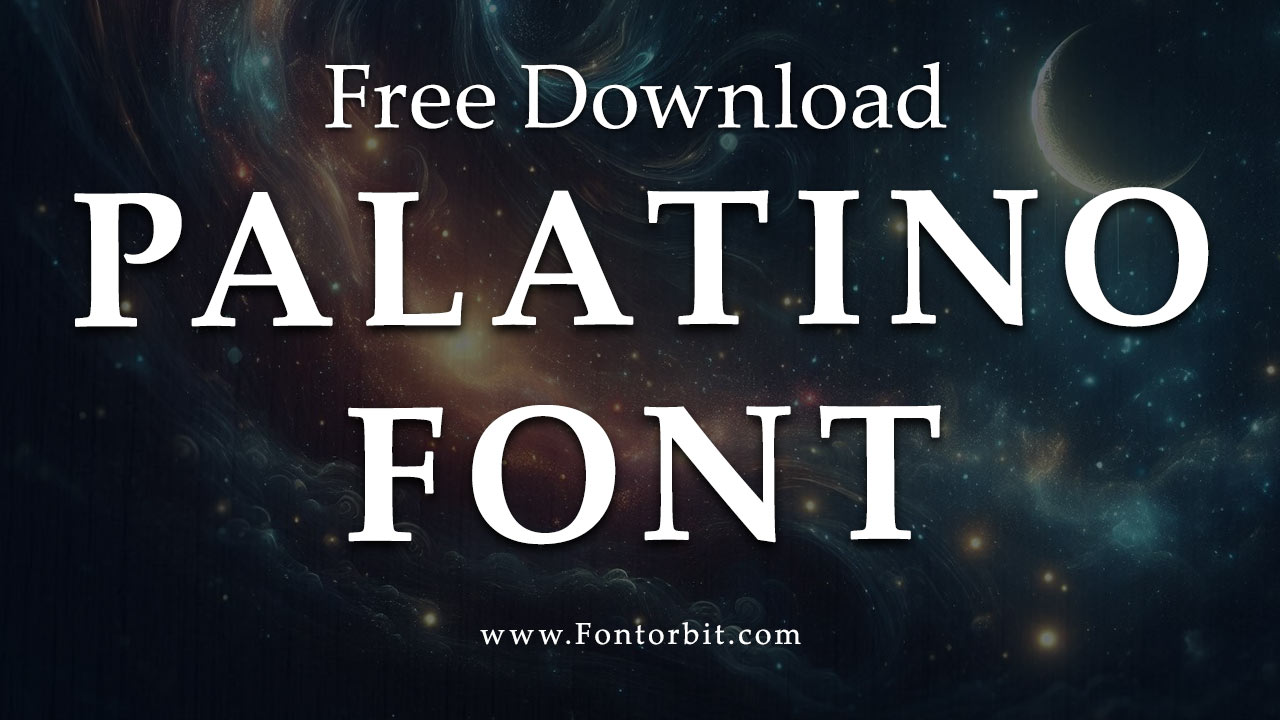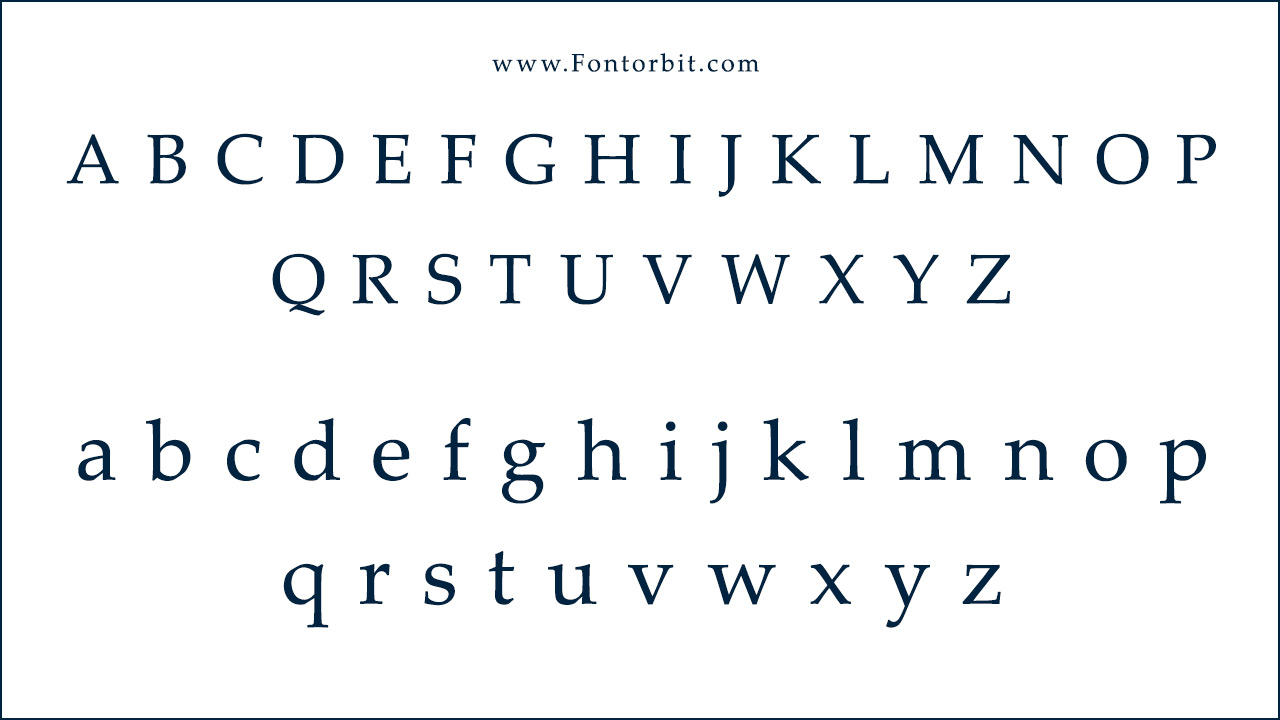
Palatino font is a classic serif typeface designed by Hermann Zapf and first released in 1949 by the Stempel foundry. Known for its legibility and elegance, it has become a staple in both print and digital media. It draws inspiration from the Italian Renaissance, making it a timeless choice for various design applications.
Palatino Family Includes:
- Palatino Pro Light
- Palatino Pro Light Italic
- Palatino Pro Roman
- Palatino Pro Italic
- Palatino Pro Medium
- Palatino Pro Medium Italic
- Palatino Pro Bold
- Palatino Pro Bold Italic
- Palatino Pro Black
- Palatino Pro Black Italic
Notable Uses Of Palatino
Palatino is widely used in book publishing, advertising, and branding due to its readability and classic appearance. It’s particularly favoured for:
- Book body text: Popular for novels and non-fiction.
- Headings and subheadings: Ideal for creating emphasis in print and digital layouts.
- Logo design: Employed by brands seeking a refined and traditional look.
Palatino Found In Use
You can find Palatino in numerous publications, corporate branding, and even digital interfaces. Some iconic uses include:
- Adobe and Apple products: As a standard font in PostScript technology.
- Educational textbooks: Frequently used for their clarity in body text.
- Corporate identities: Selected by companies aiming for a sophisticated image.
Palatino remains a versatile and timeless typeface, perfect for projects that blend classic aesthetics and readability. Whether used in print or digital formats, Palatino’s enduring design continues to make a significant impact.
FAQs On The Palatino Font
1.Who Designed The Palatino Font?
Hermann Zapf, a renowned German type designer, created Palatino in 1949.
2.What Is Palatino Best Used For?
Palatino is ideal for book body text, headings, and branding due to its readability and elegant design.
3.Are There Free Alternatives To Palatino?
Yes, Garamond, Cardo, and Libre Baskerville are great free alternatives.